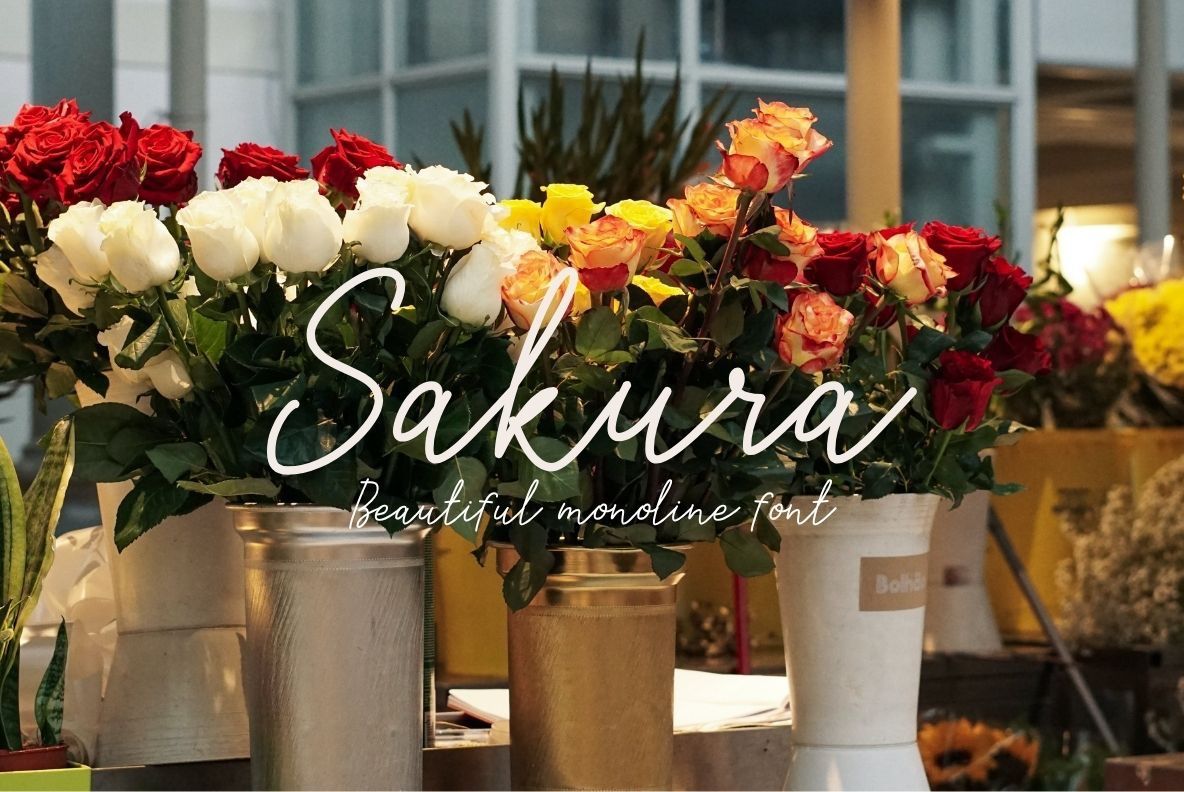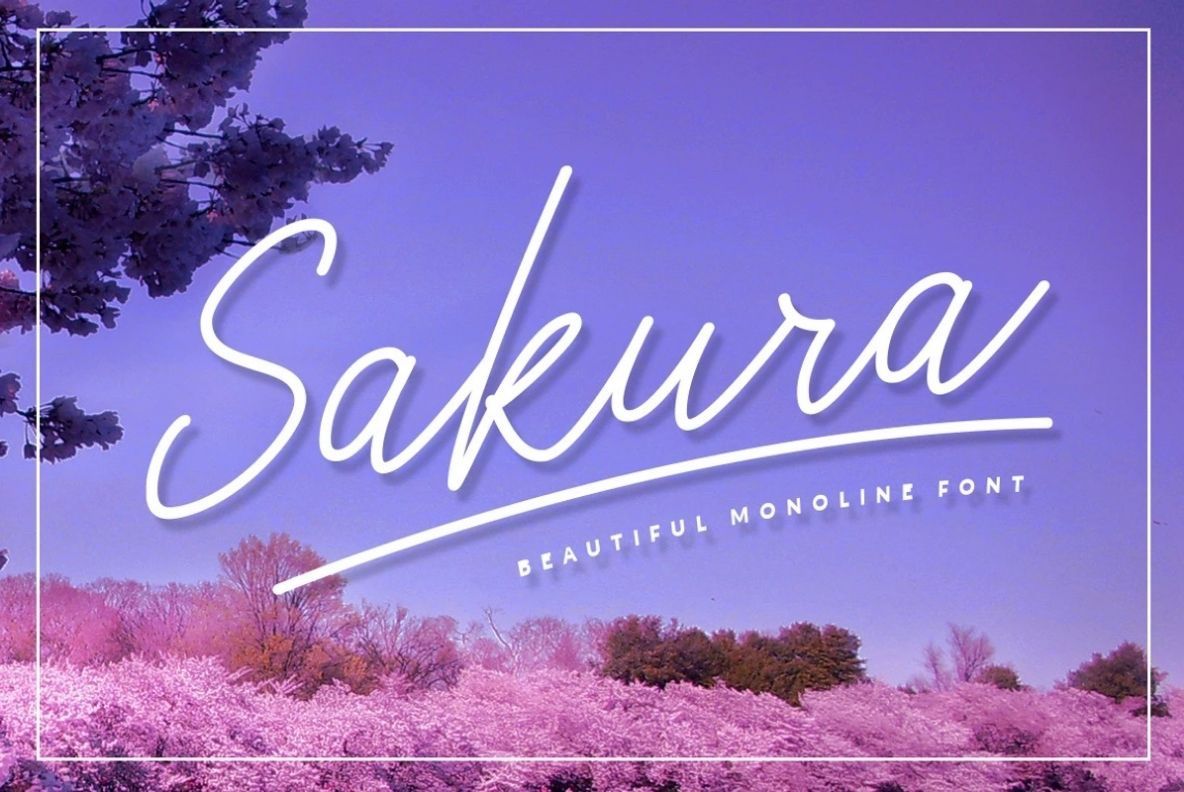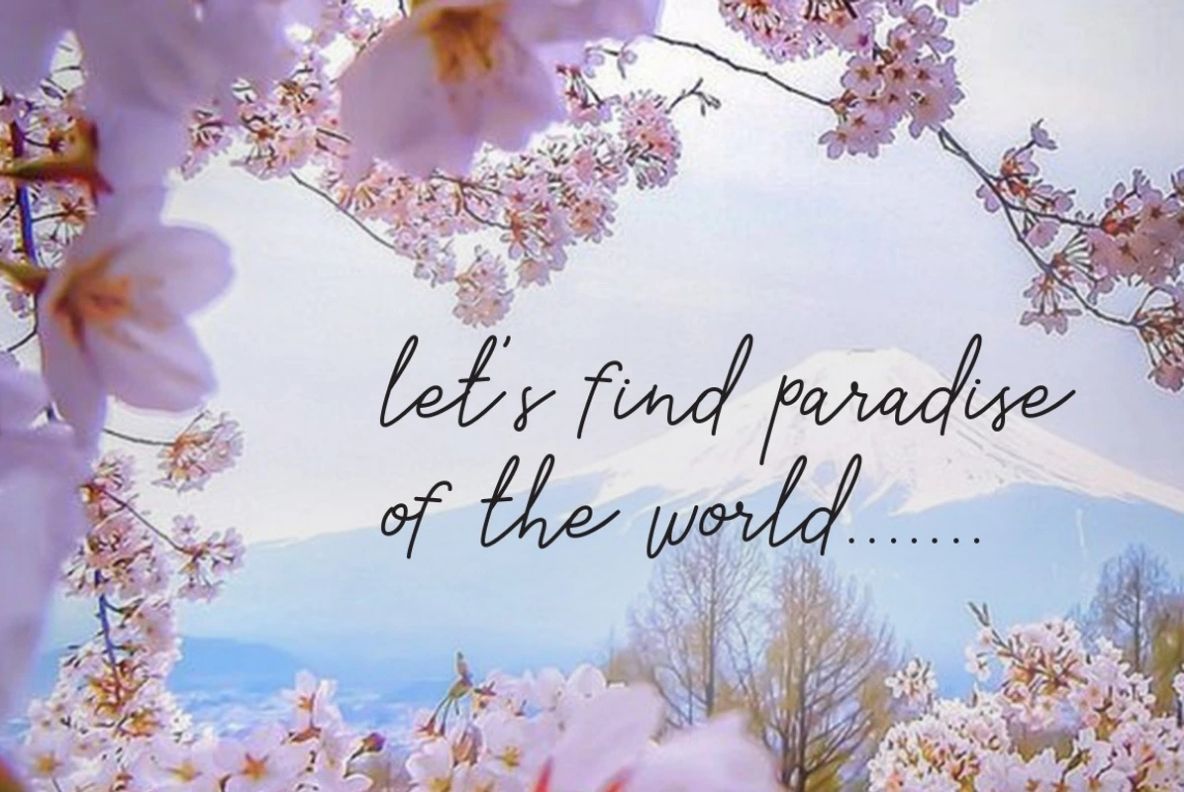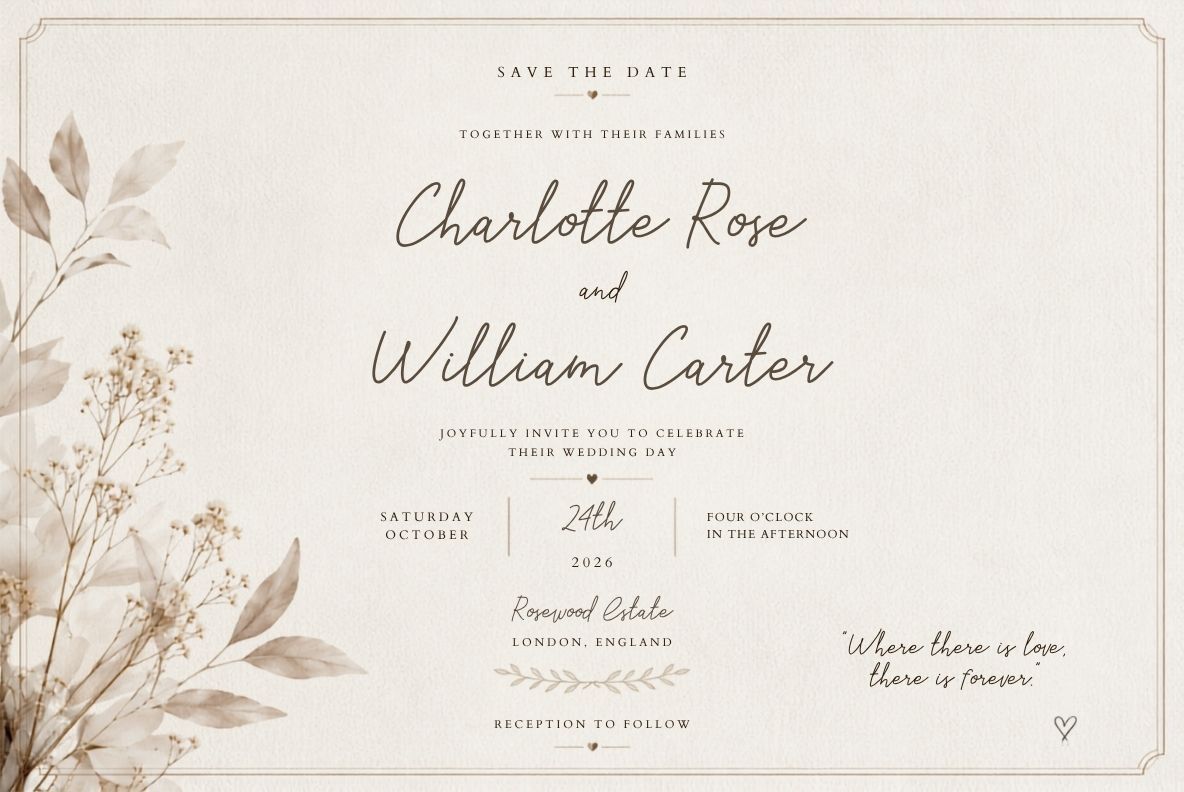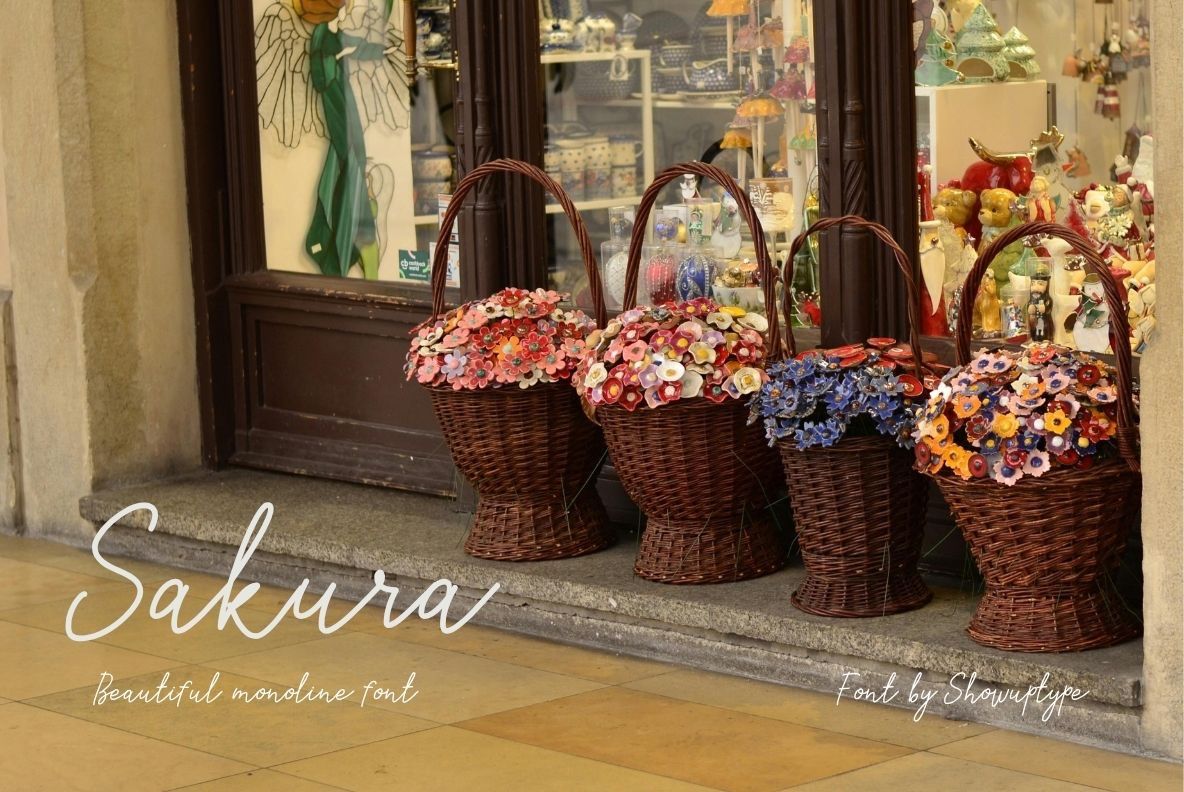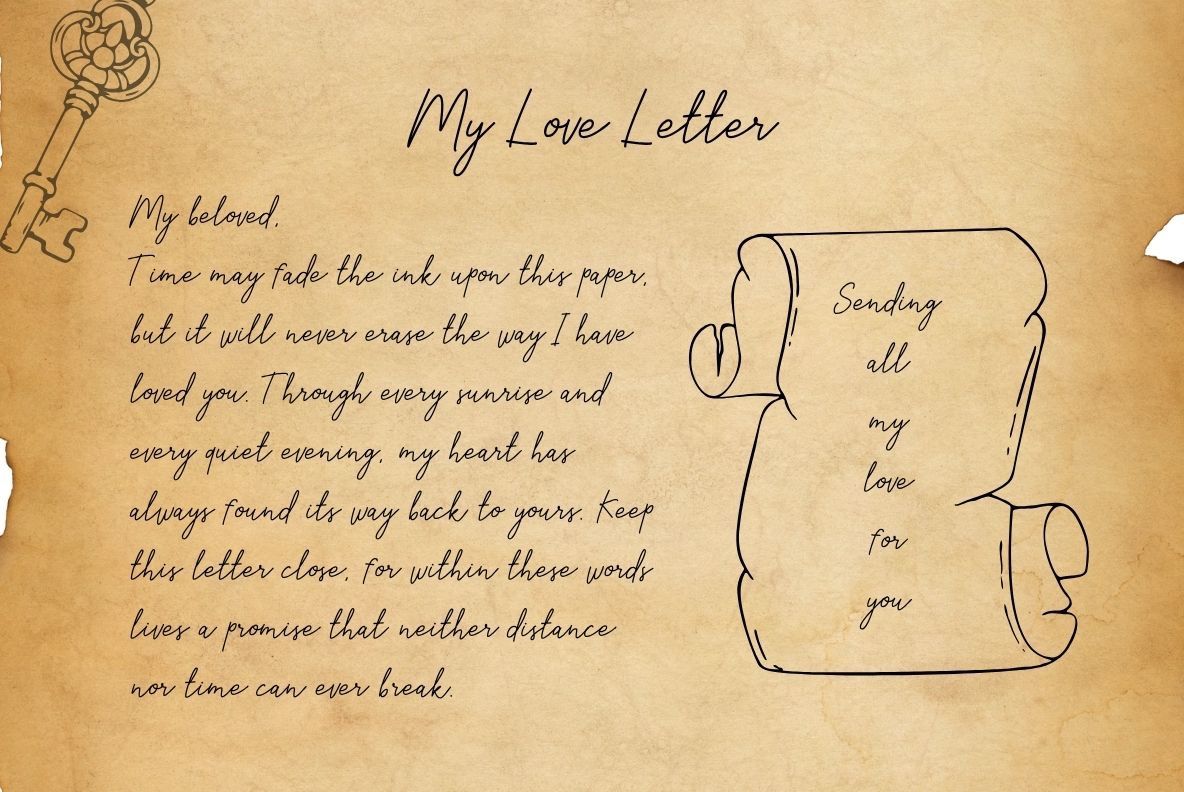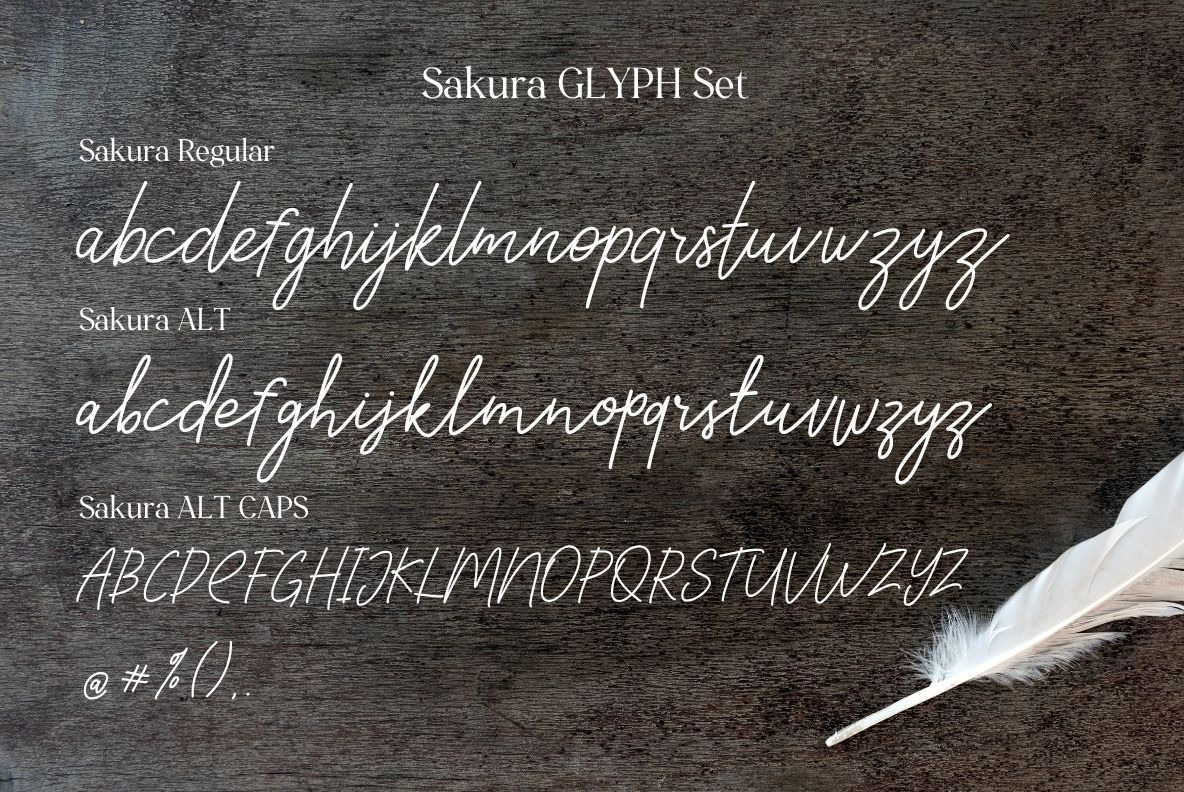
Sakura – Beautiful Monoline Script Font
Meet Sakura, a clean and elegant monoline script font designed with smooth flowing strokes and a natural handwritten feel. Its minimalist style makes it perfect for modern branding, signature logos, invitations, social media, packaging, and lifestyle designs.
Featuring three complementary styles, Sakura gives you the flexibility to create beautiful custom lettering with a refined and professional appearance. Whether you're designing for a personal brand or a commercial project, Sakura delivers timeless elegance with effortless readability.
Perfect For:
- Signature Logos
- Luxury Branding
- Wedding Invitations
- Fashion Branding
- Beauty & Cosmetic Packaging
- Photography Watermarks
- Business Cards
- Social Media Graphics
- Product Packaging
- Editorial Design
- Quotes
- Modern Lifestyle Branding
Font Features:
- 3 Font Styles Included
- Regular
- Alternate
- Alternate Caps
- Uppercase & Lowercase
- Numbers & Punctuation
- Beautiful Monoline Style
- Smooth Handwritten Feel
- Multilingual Support
The included alternate styles allow you to create custom lettering and unique branding with ease. Mix the standard and alternate characters to achieve a natural handwritten appearance while maintaining excellent readability.